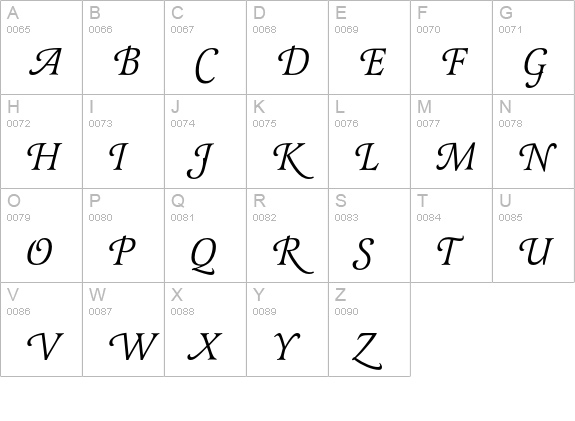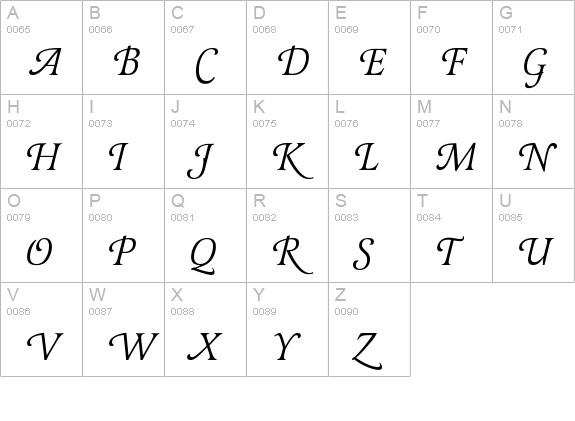
LatienneEF-ItalicSwC font is a stunning display of elegance and sophistication. Its delicate and graceful curves make it perfect for adding a touch of refinement to any design project. This italic variant of the LatienneEF font family exudes a sense of fluidity and movement, making it ideal for conveying a sense of elegance and style. The soft and flowing strokes of LatienneEF-ItalicSwC create a harmonious balance between the thick and thin lines, resulting in a truly captivating visual experience. Whether used in headlines, logos, invitations, or any other creative endeavor, this font is sure to make a lasting impression. One of the greatest aspects of LatienneEF-ItalicSwC font is that it is free to download. You can easily obtain this font and unleash its beauty in your designs without any restrictions. Simply visit FontsMarket.com, and you will have access to this exquisite typeface, ready to enhance your creative projects. With its timeless charm and versatility, LatienneEF-ItalicSwC font is a valuable asset for designers, typographers, and creatives alike. Its elegant presence on the page adds a touch of sophistication and professionalism to any layout. Download this font from FontsMarket.com today and let its beauty elevate your designs to new heights.